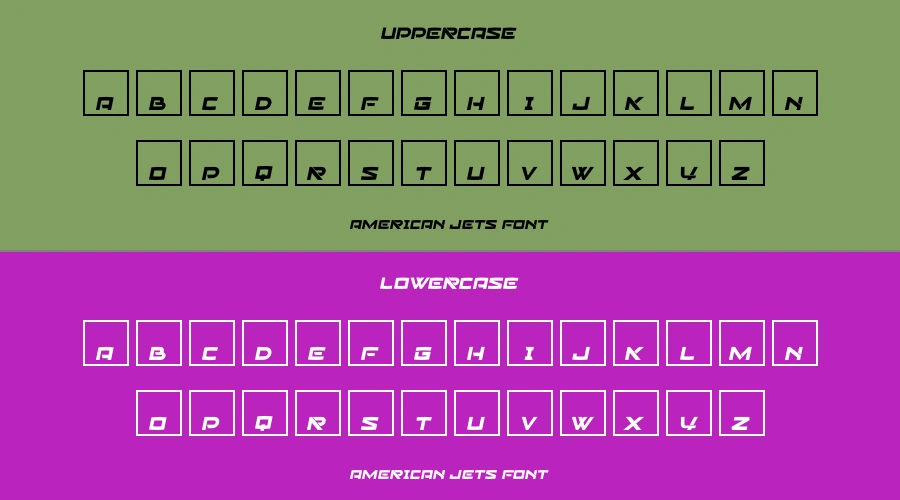
About American Jets Font
American Jets Font stands out for its distinctive combination of harmonic curves and color consistency. Ideal for digital signage, it provides the clarity and practical utility that professional projects demand. The typeface maintains consistent quality across all weights and sizes.
Key features include refined expressive energy and practical connecting forms, enhancing typographic expression. In hero imagery applications, American Jets Font demonstrates exceptional readability. The spur details and personality contribute to its distinctive character and professional appeal.